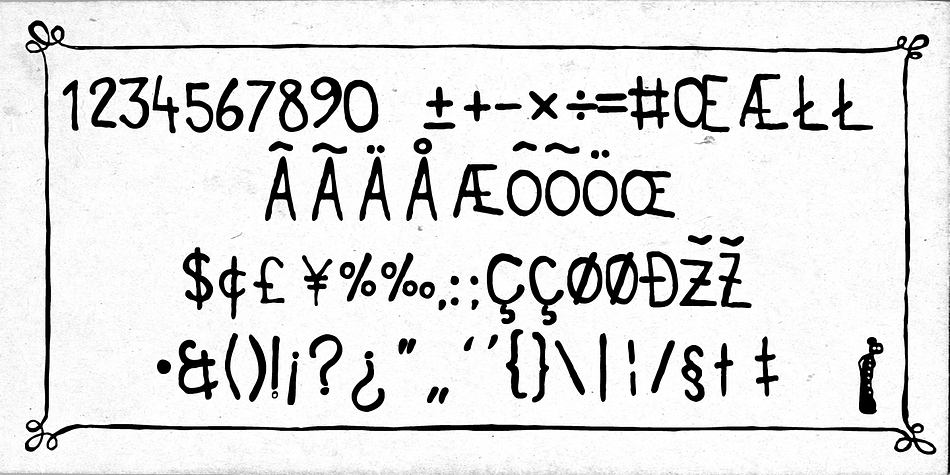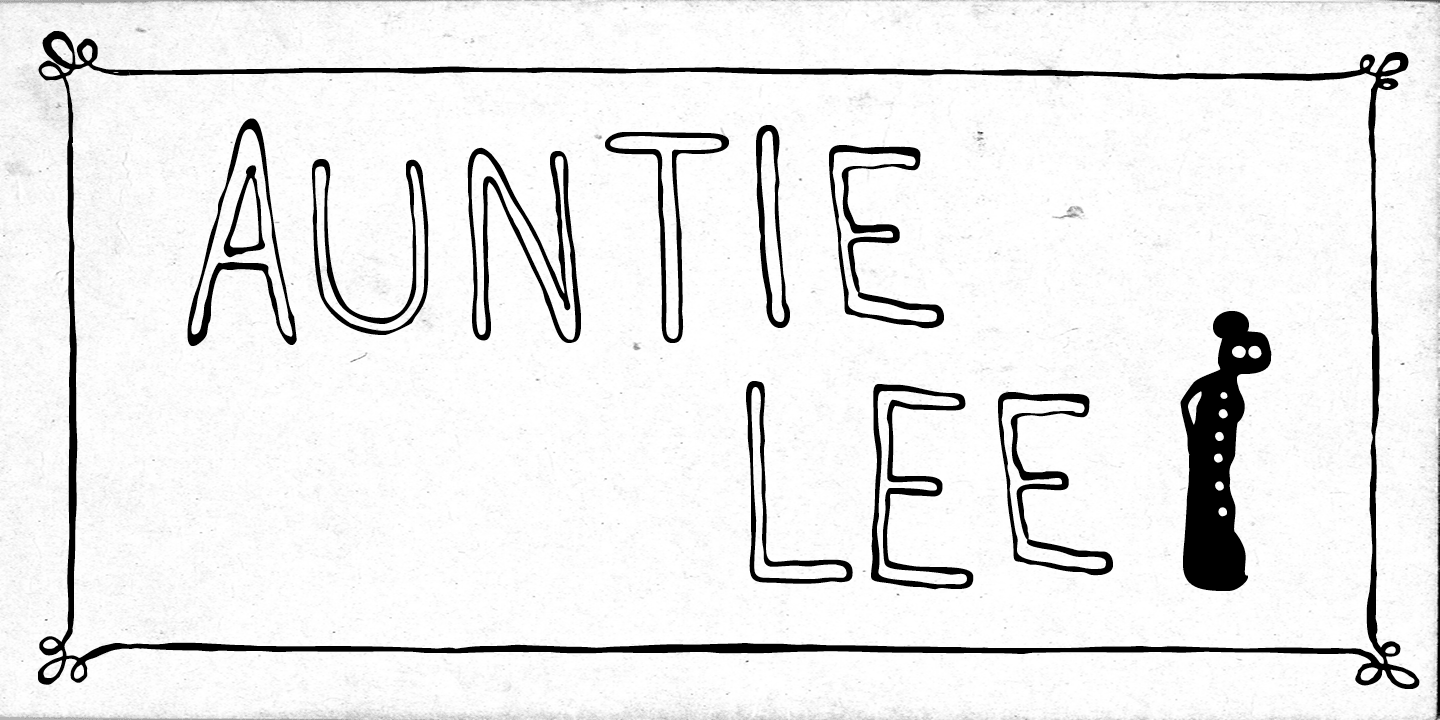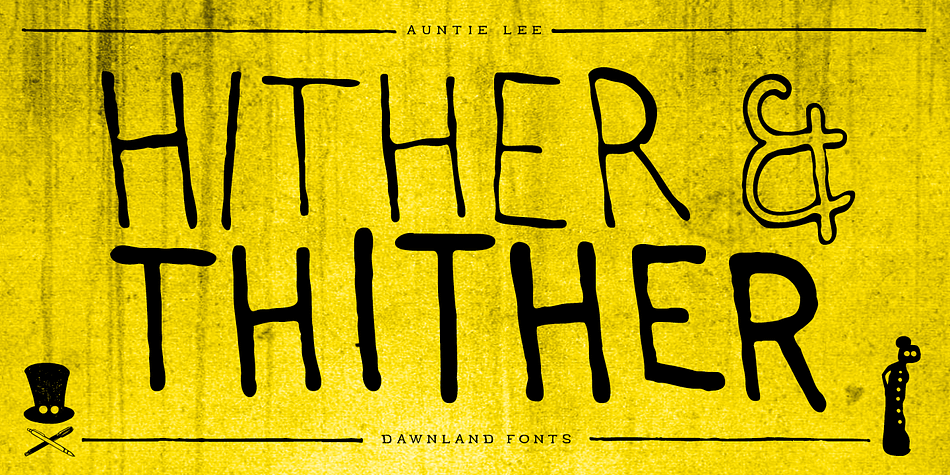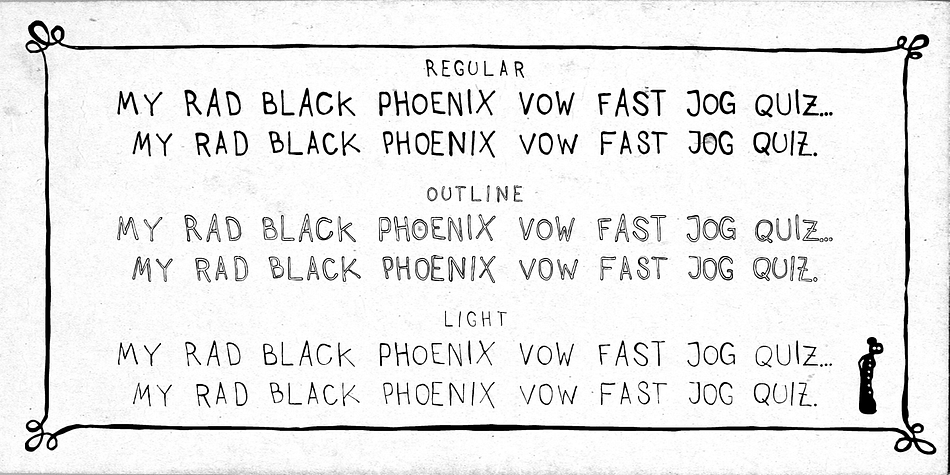
Designed by Daniel Viberg, Auntie Lee is a hand display font family. This typeface has three styles and was published by Dawnland.
Meet Auntie Lee - a hand drawn and playful sans serif!
An upper-case-only font with upper-case-variants on the lower-case letters. With three happy versions - regular, outline & thin - you just can’t go wrong!